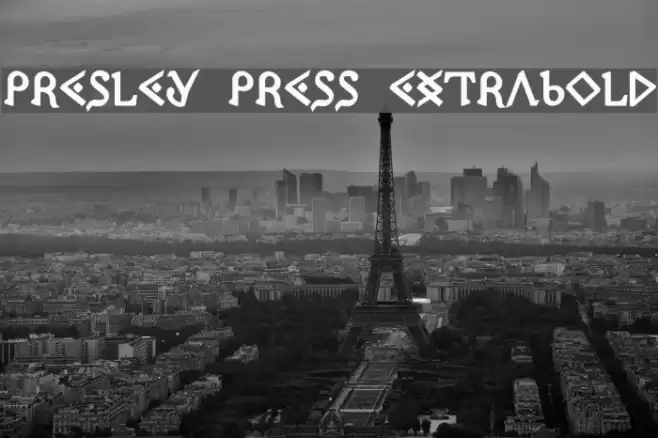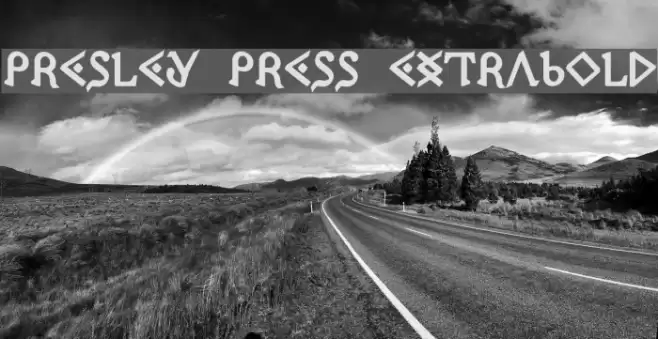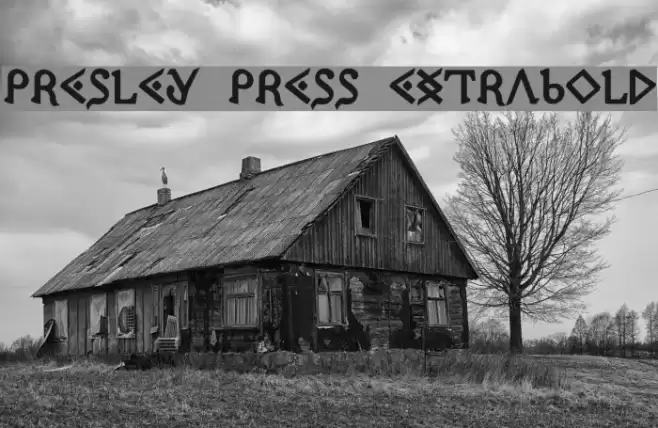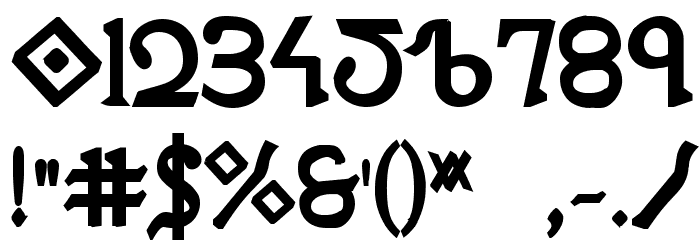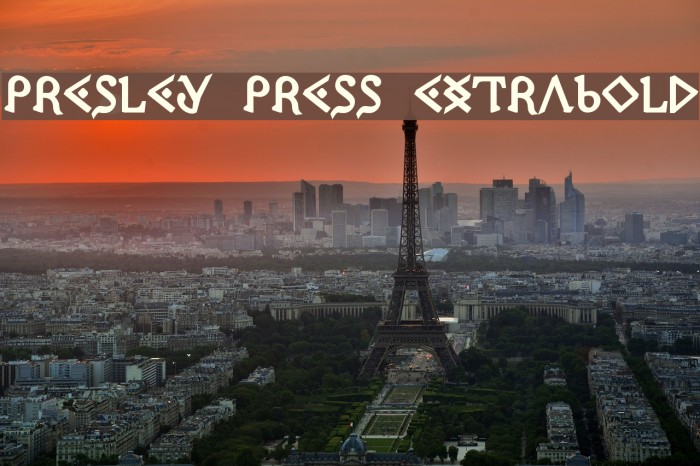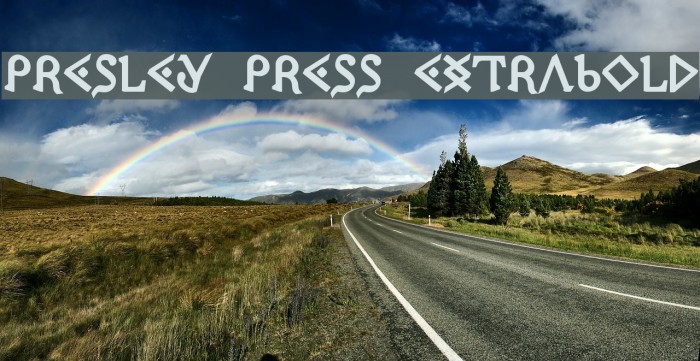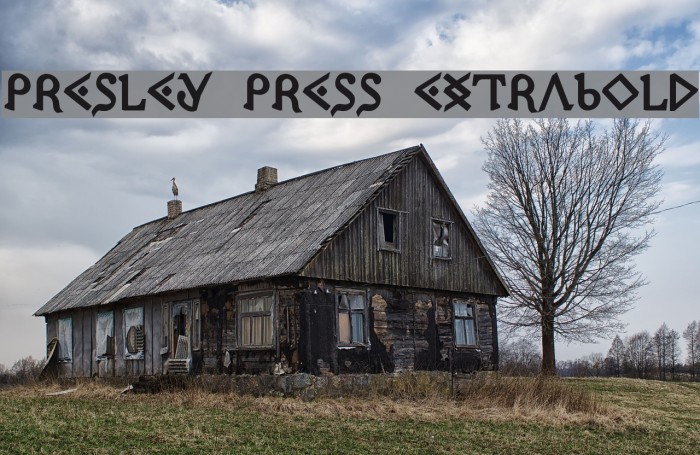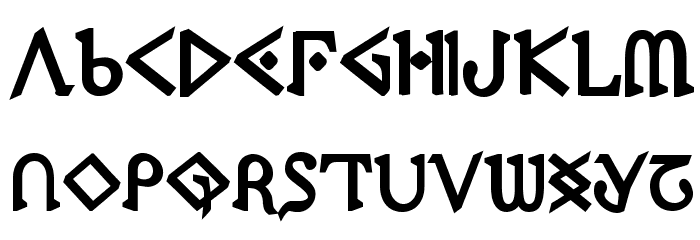
Presley Press ExtraBold Font
Presley Press ExtraBold Description
This font features a bold and striking design with a unique geometric flair. The characters are crafted with sharp angles and distinct curves, creating a dynamic and eye-catching appearance. The uppercase letters are particularly prominent, with a strong presence that commands attention. The lowercase letters maintain the same boldness, ensuring consistency throughout the text. Numbers and special characters are equally bold, with a playful yet assertive style. The overall design is reminiscent of vintage or retro aesthetics, making it suitable for projects that require a touch of nostalgia or a bold statement.
A bold, geometric font with a vintage flair and strong visual impact from Crazy fonts.
- Proposed Projects: Ideal for posters, logos, branding, and any project that requires a bold, retro aesthetic.
- Overall Style: Vintage